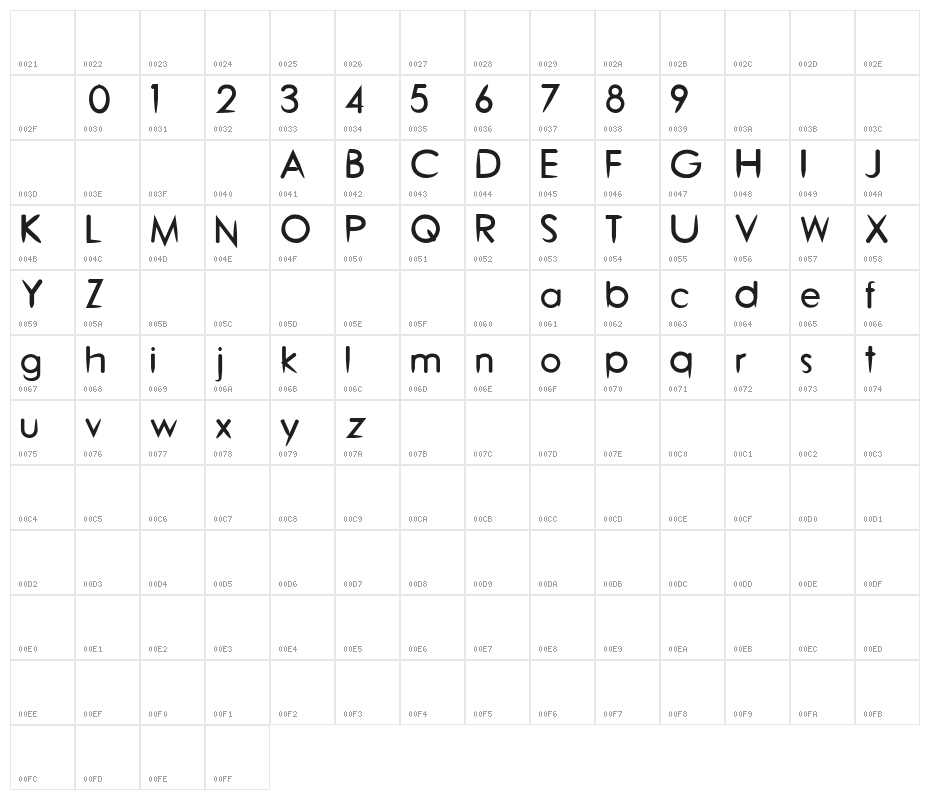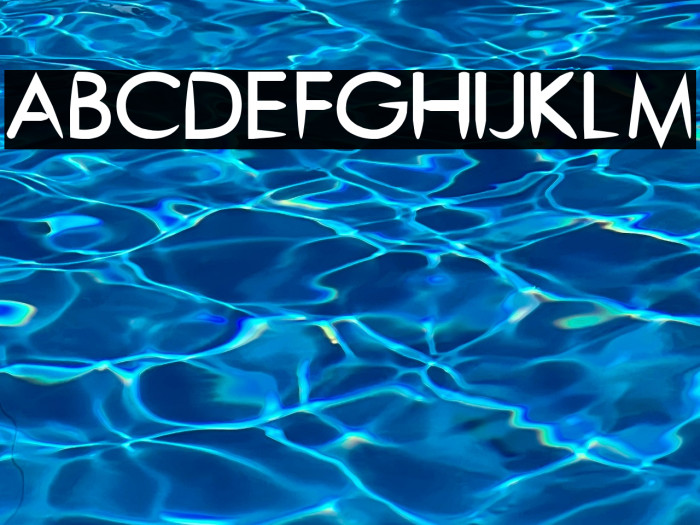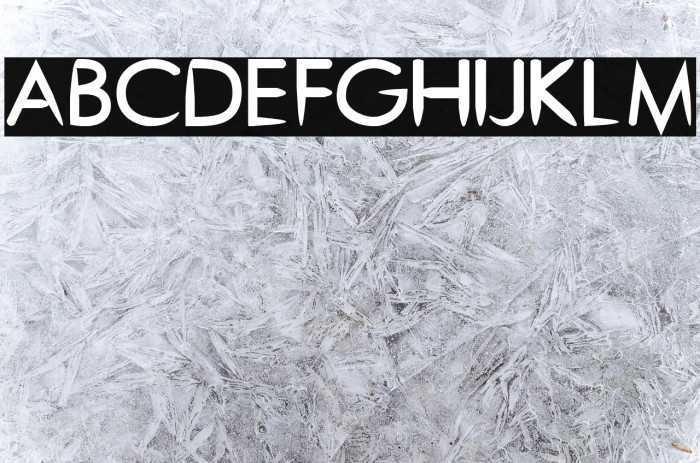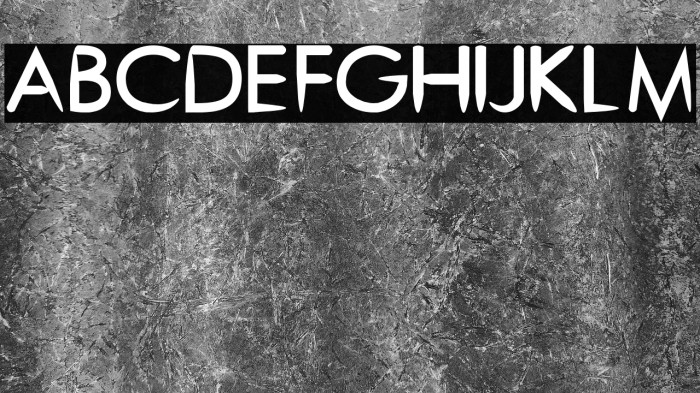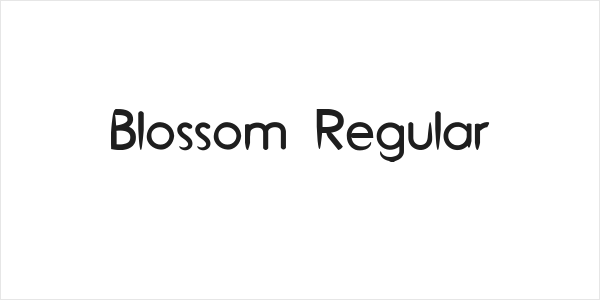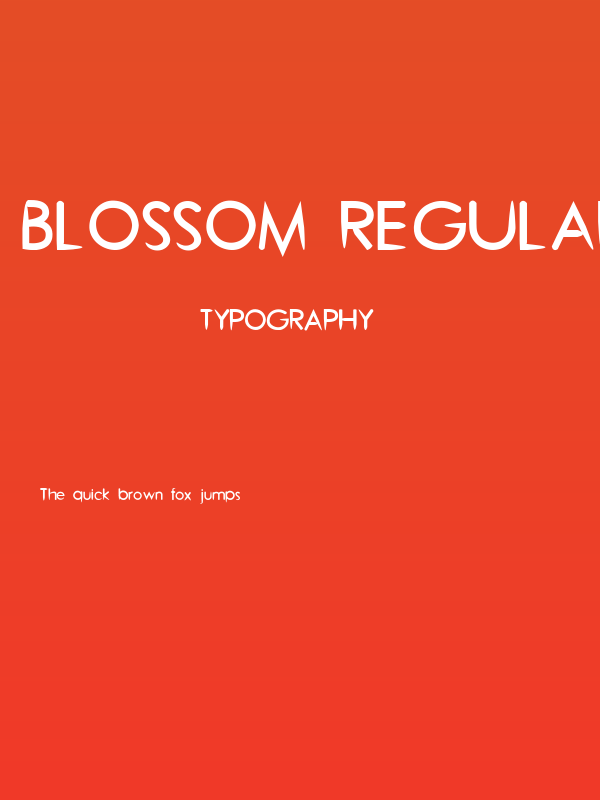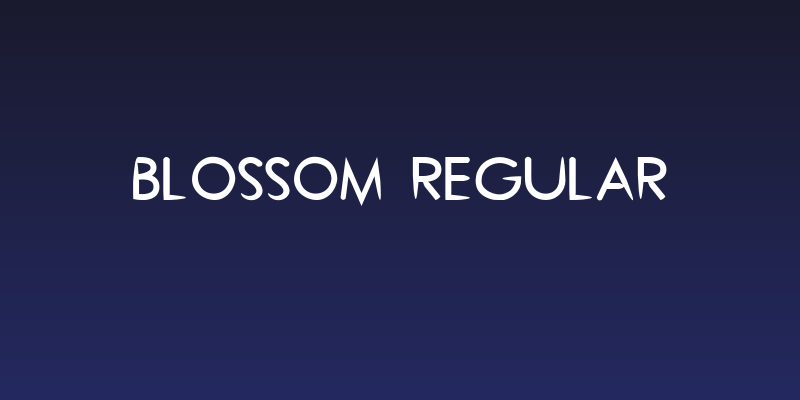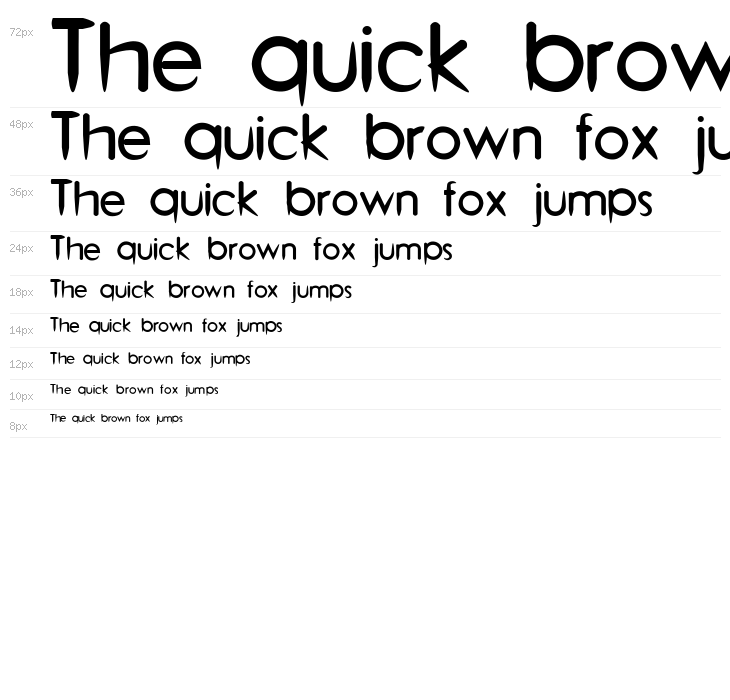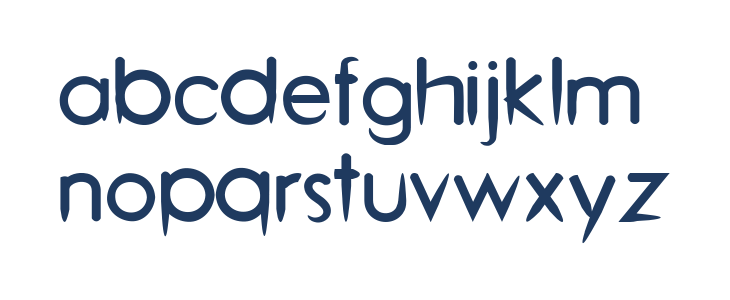
Blossom Regular Font
Blossom Regular Description
This font features a playful and whimsical design, characterized by its rounded and slightly irregular letterforms. The uppercase letters have a distinct flair with subtle curves and varying stroke thicknesses, giving them a lively appearance. The lowercase letters maintain a consistent style, with smooth, rounded edges that enhance readability while retaining a unique charm. The numerals are bold and clear, matching the overall playful aesthetic. This font's special characters, including symbols like $?&%!#*=, are designed to complement the alphabet with similar stylistic elements, ensuring a cohesive look across all text.
| Proposed Projects | Ideal for children's books, playful branding, greeting cards, and creative posters. |